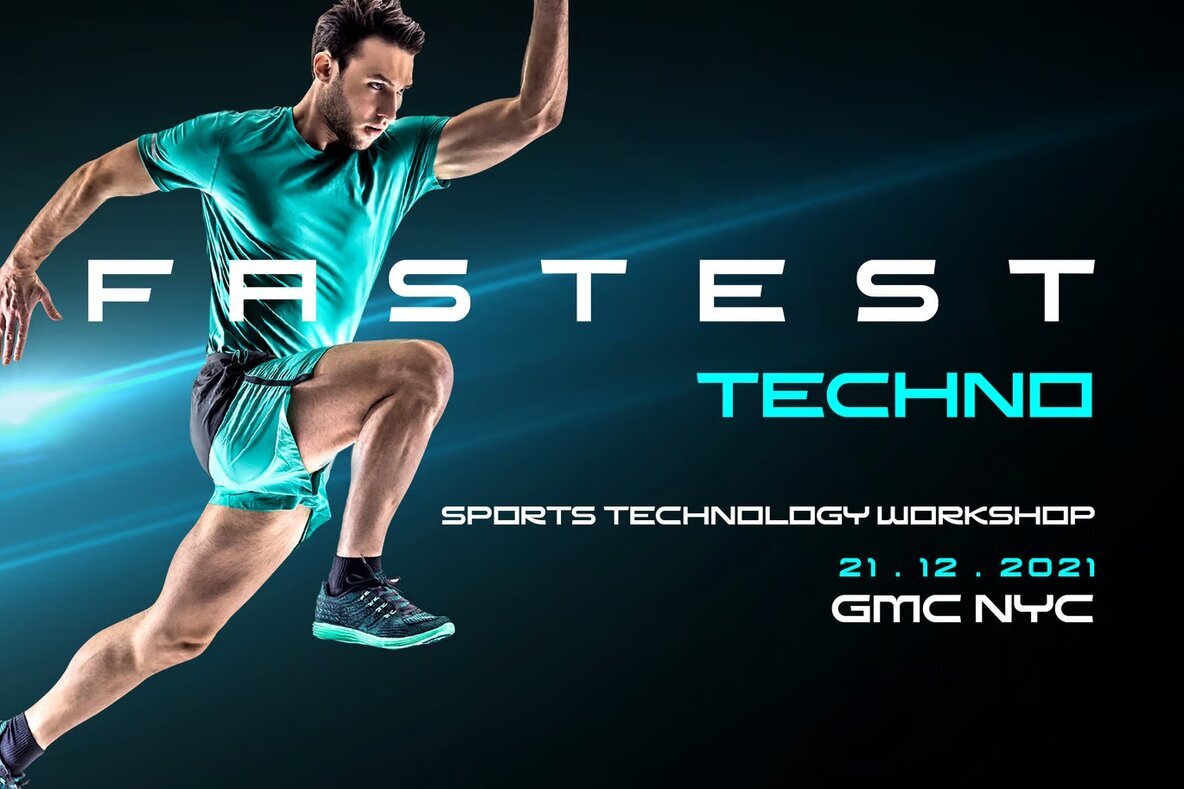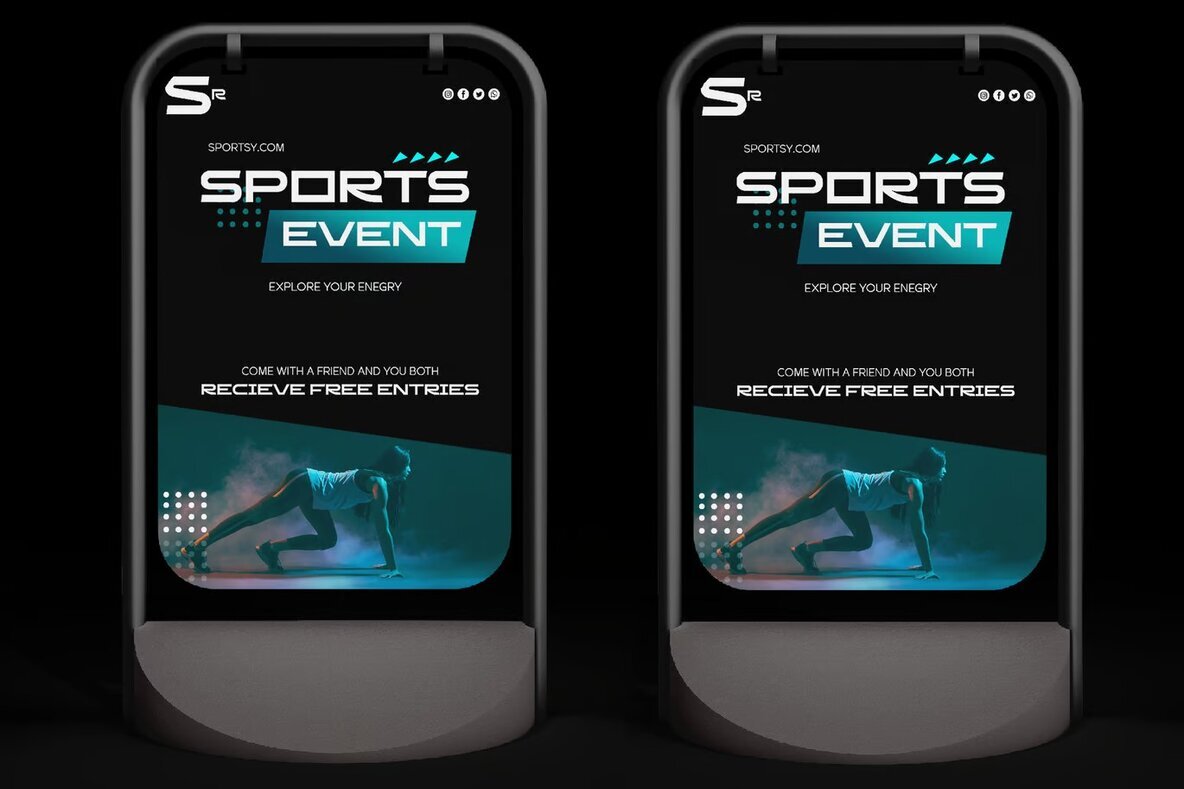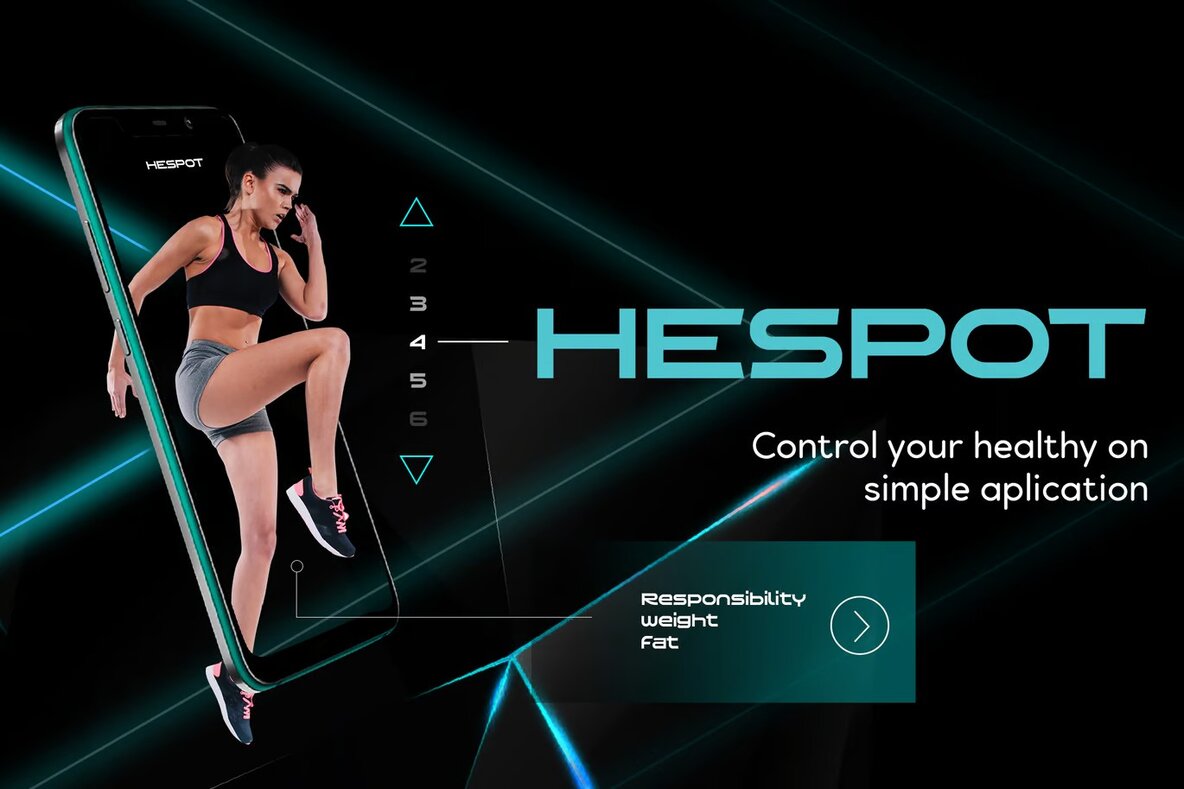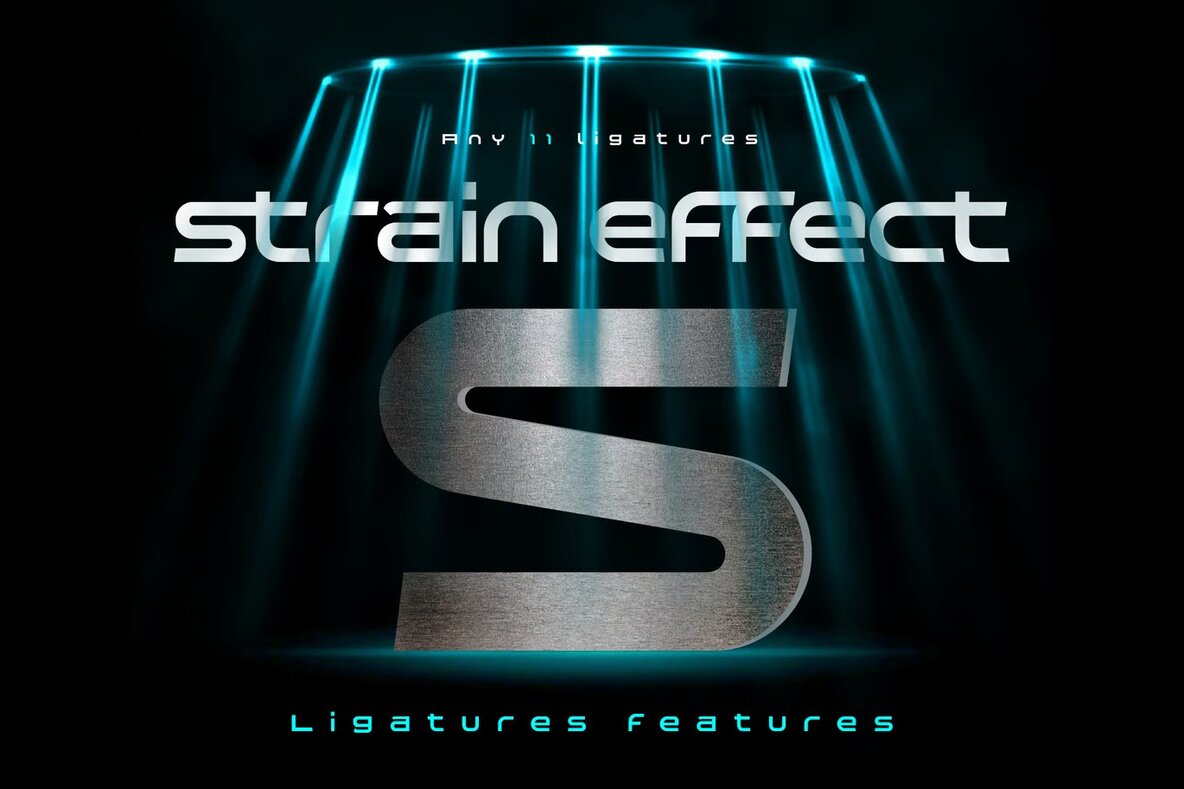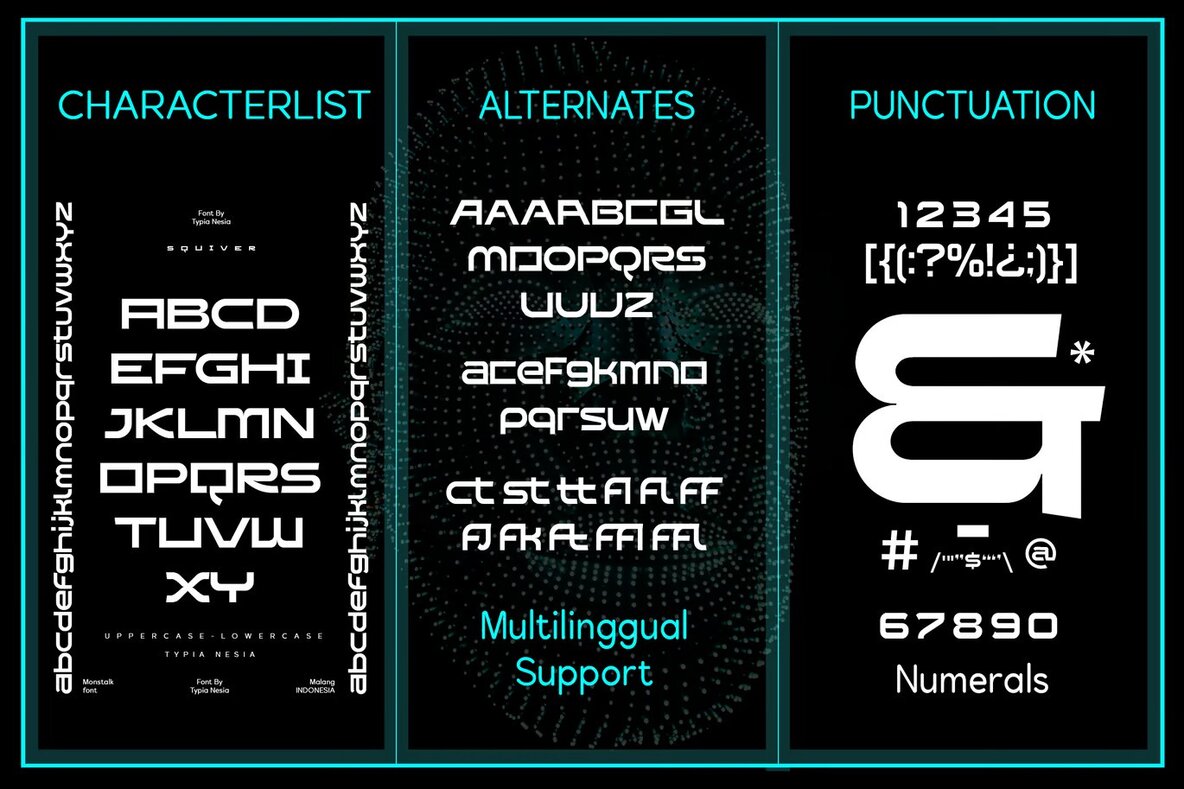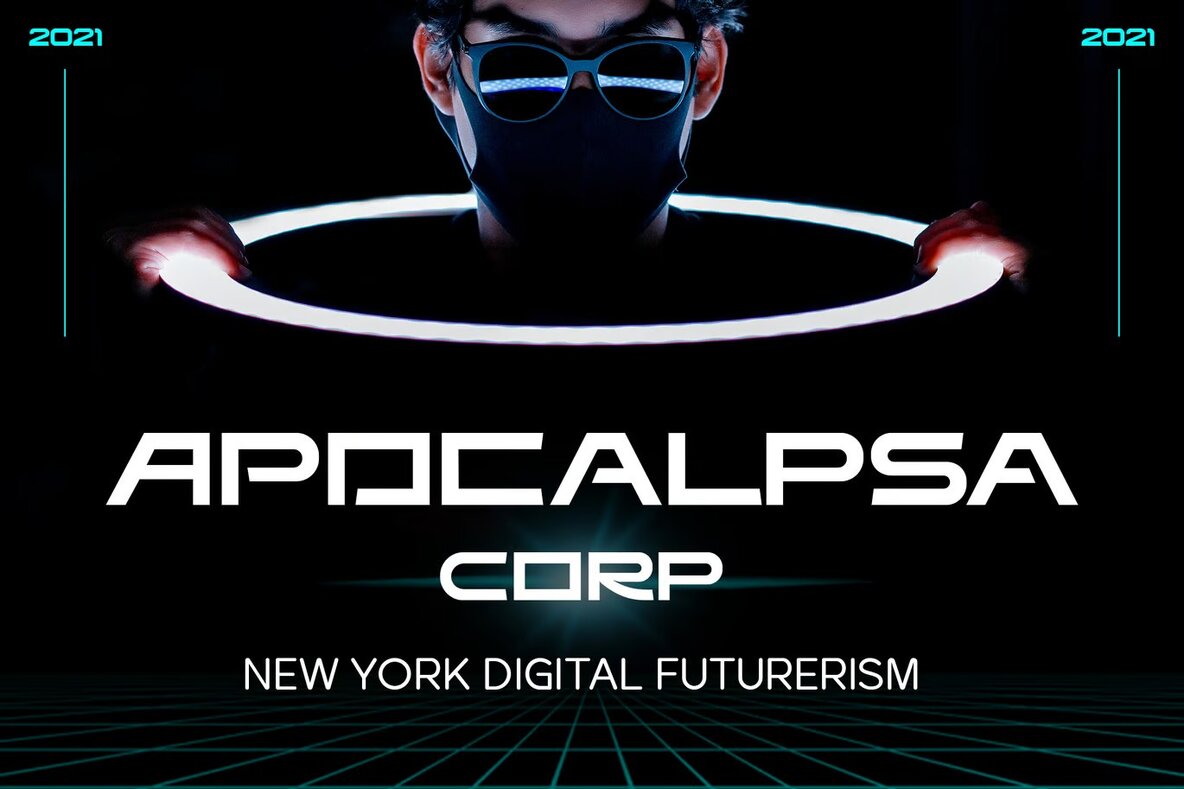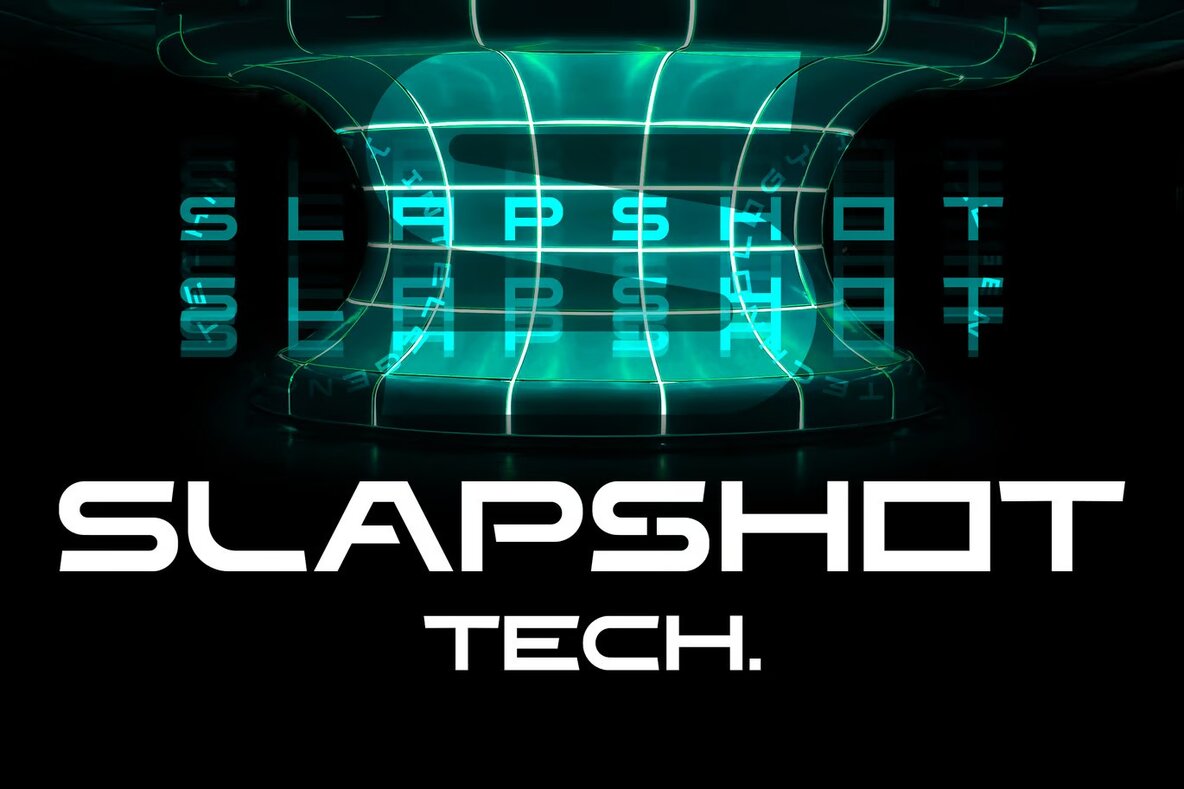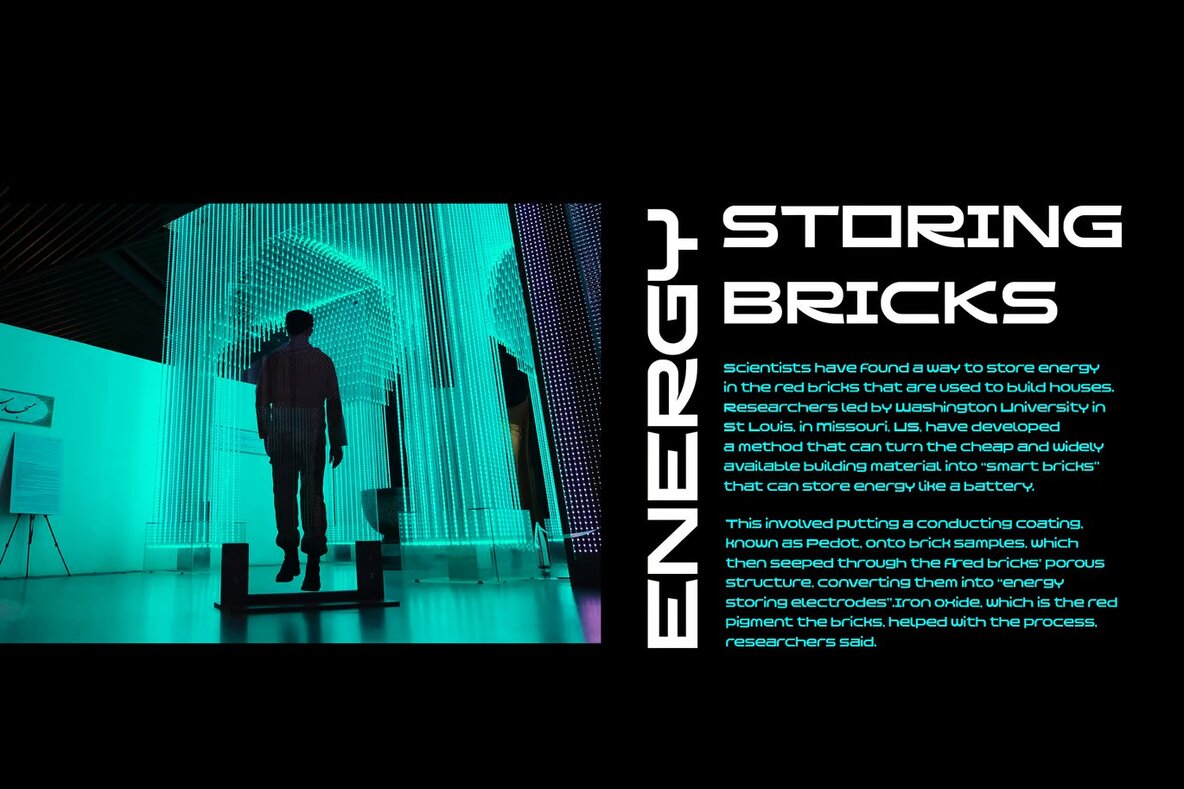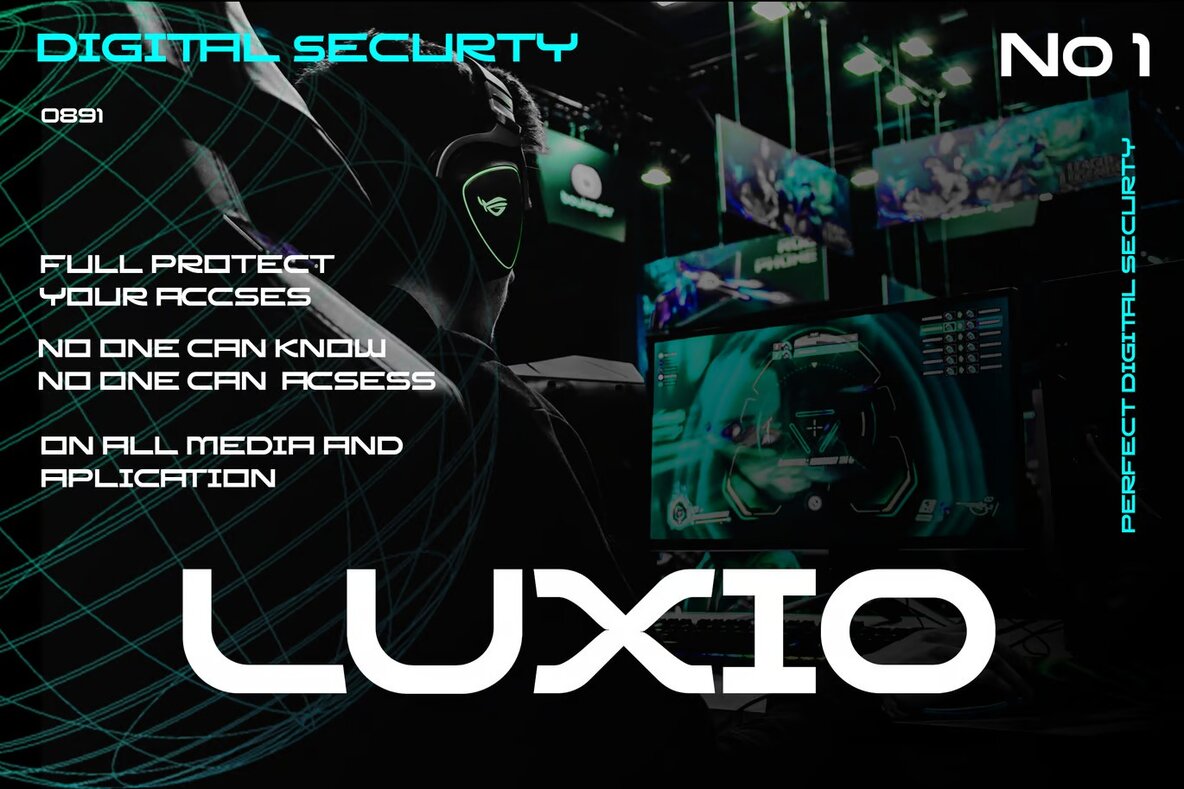
Squiver Font
Squiver Regular
Squiver is a futuristic, modern sans serif font ideal for a wide range of design projects. Its sporty style makes it perfect for logo branding, editorial design, and stationery. The dynamic feel of Squiver also suits sport design and 80s retro-inspired projects, enhancing game industry visuals, music posters, and blog design.
In addition, Squiver excels in modern advertising design, card invitations, and art quotes. The font's versatility extends to home decor and book or cover titles, making it a fitting choice for special events. With Squiver, give your designs a contemporary edge across various applications.